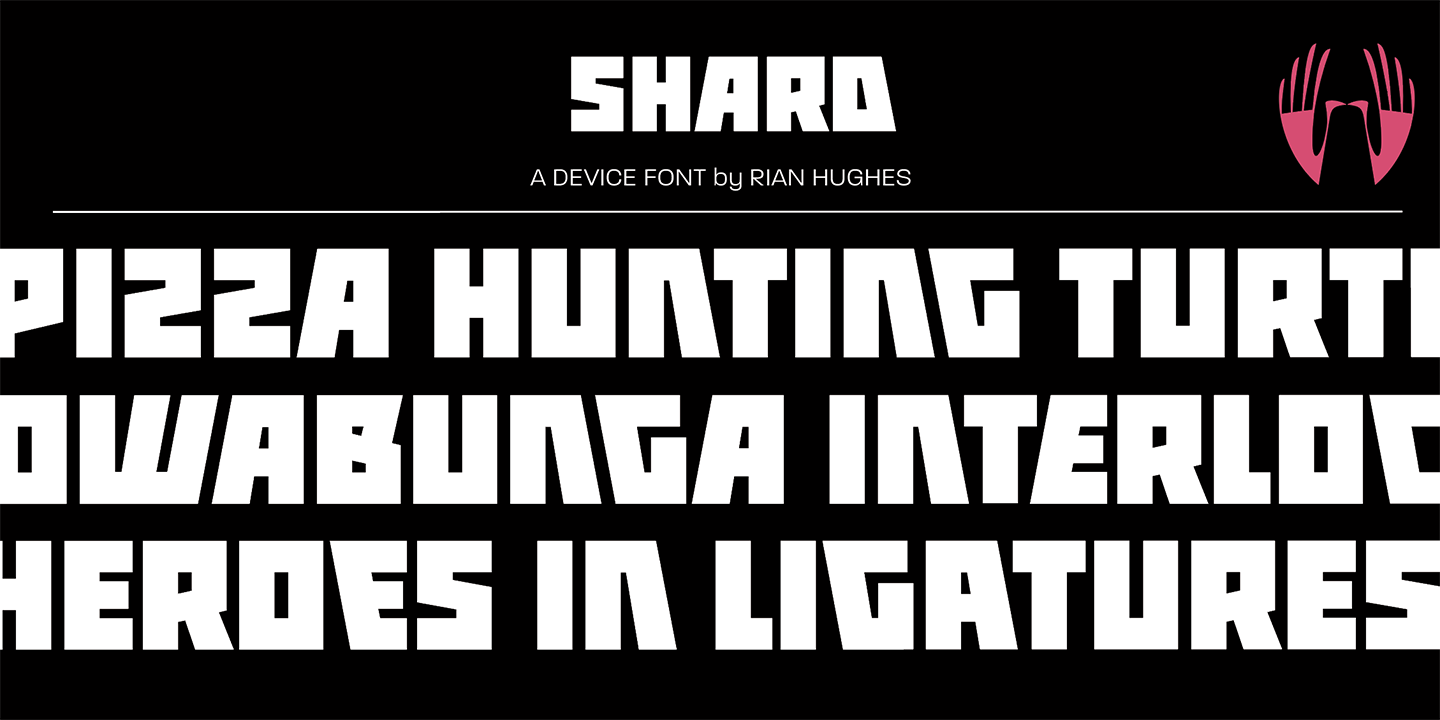
Shard Font is perfect for futuristic branding projects, sci-fi movie posters, technology company logos, video game interfaces, cyberpunk designs, electronic music covers, digital art exhibitions, tech startup branding, modern architecture signage, innovative product packaging, and any project that requires cutting-edge typography with contemporary edge.
What makes Shard Font exciting is its revolutionary approach to modern typography that breaks traditional boundaries with sharp, geometric precision. This innovative typeface features angular letterforms with crystalline structures that create a distinctive visual language perfect for forward-thinking brands. The font's fragmented aesthetic suggests innovation, disruption, and technological advancement, making it ideal for projects that need to communicate modernity and progress.
Shard Font comes in multiple font families including Regular, Bold, Light, Condensed, Outlined, and Glitch variations, offering designers comprehensive options to create dynamic compositions and achieve the perfect futuristic aesthetic for contemporary design challenges.
Whether you're developing tech brand identity, creating digital interfaces, or designing avant-garde promotional materials, Shard Font Free Download provides the ideal solution for projects demanding innovative visual expression. This cutting-edge typeface excels in both digital and print applications, ensuring your designs communicate technological sophistication and forward-thinking vision. The sharp geometry and modern character of Shard Font make it an indispensable tool for designers who prioritize innovation, contemporary aesthetics, and breakthrough visual communication in their typographic choices.